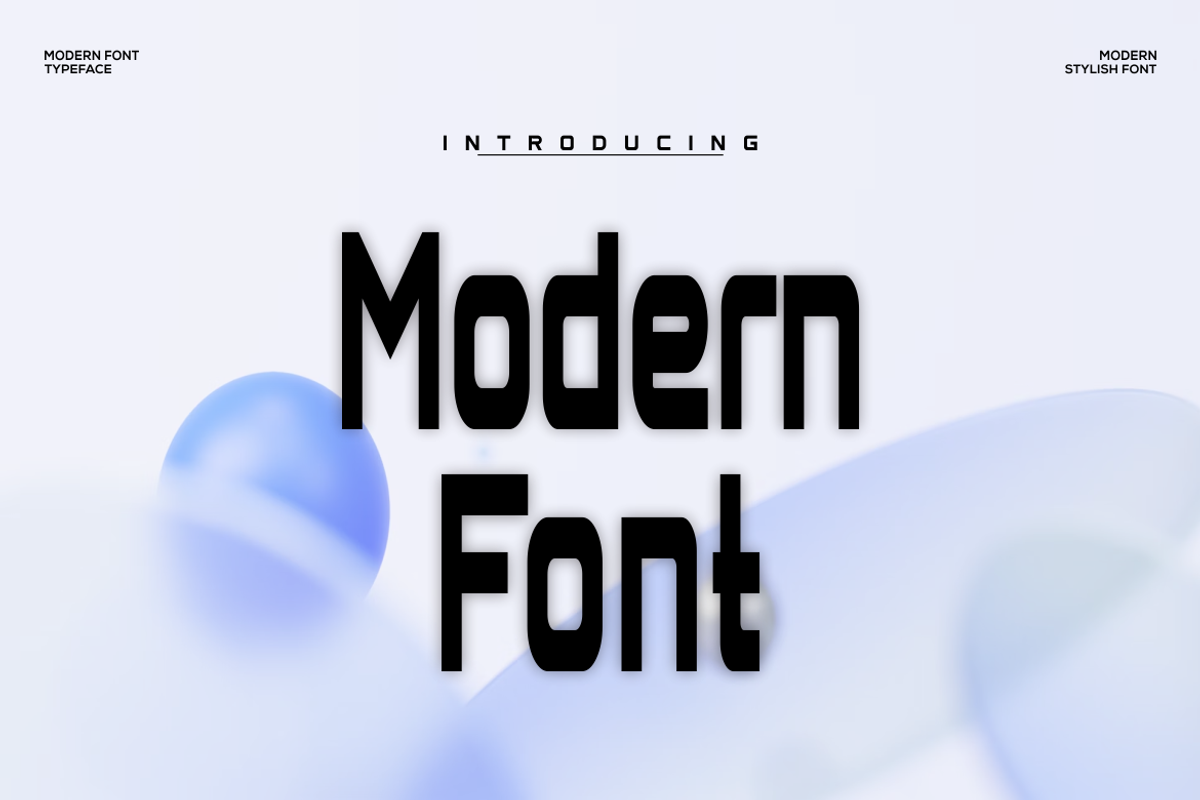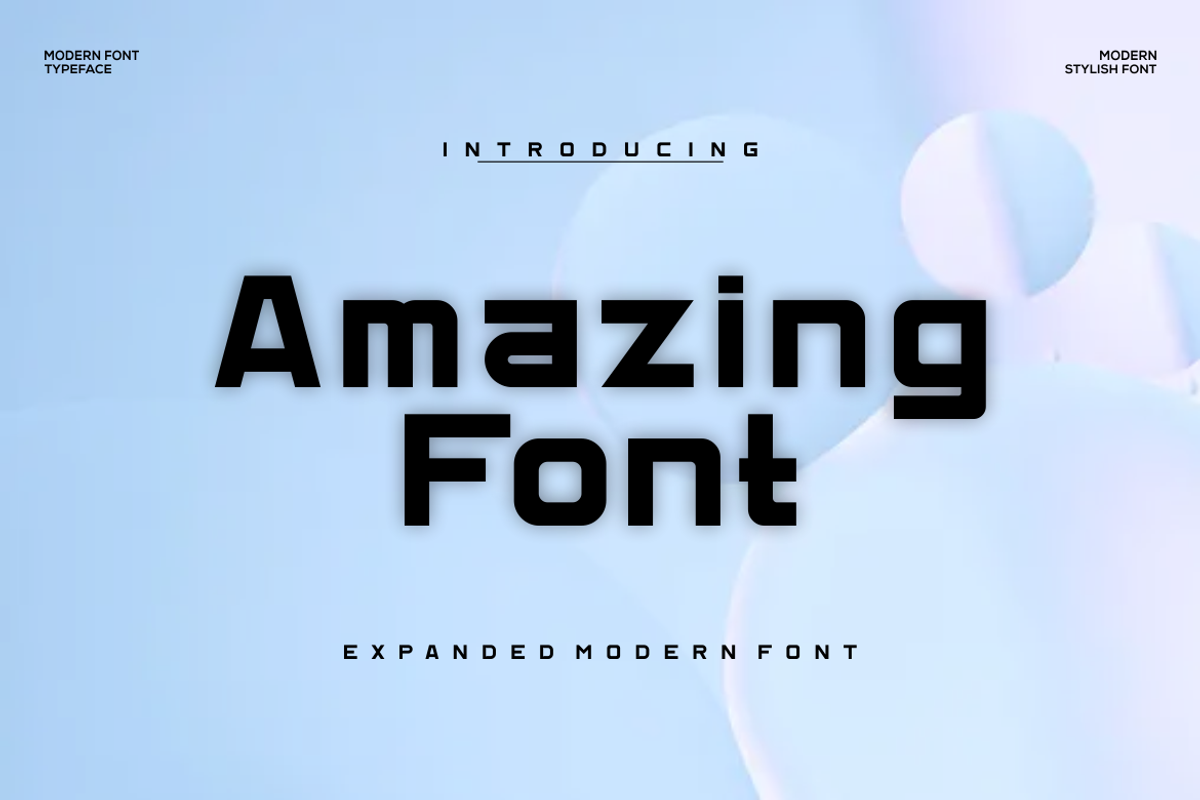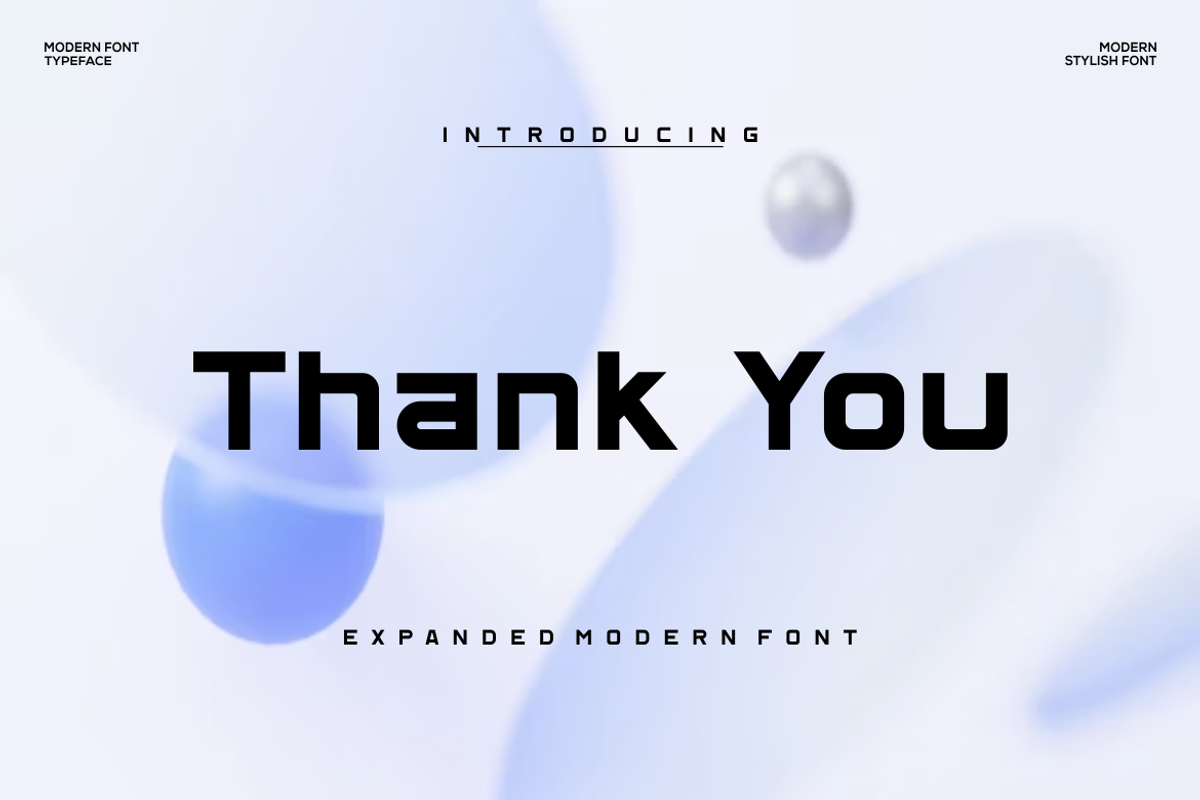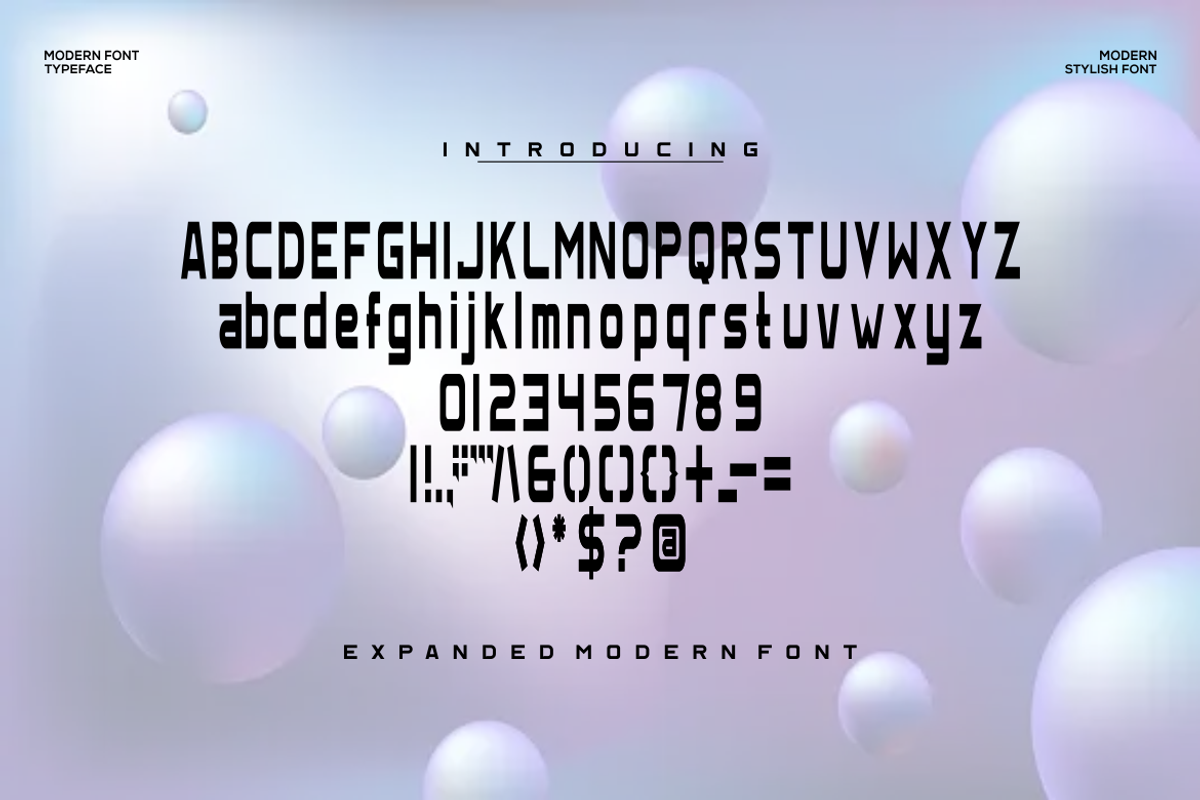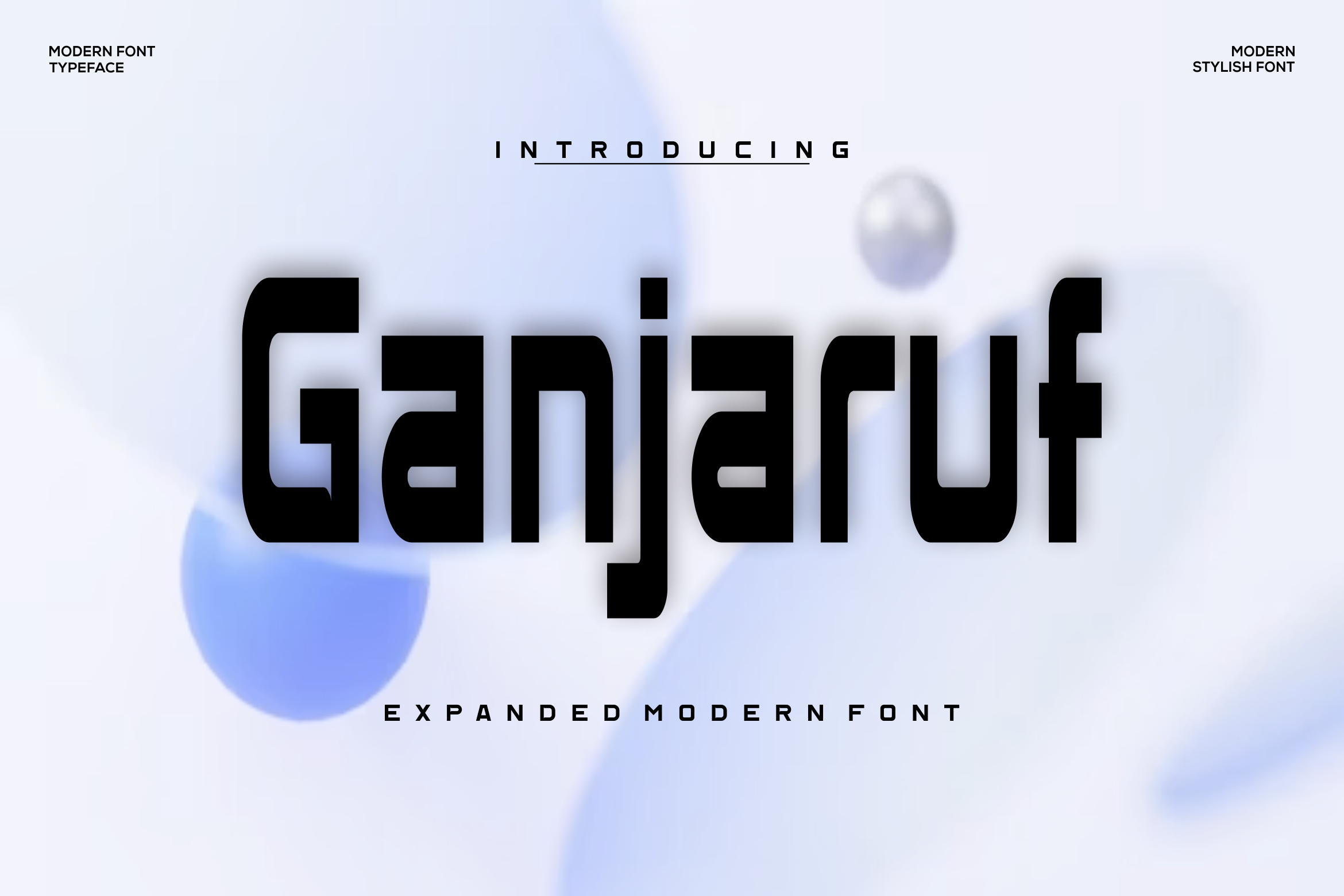
Ganjaruf Font
Presenting our new product Ganjaruf Font - Modern Font is a bold and authentic display font. This font is perfect for any branding project such as logos, t-shirt printing, creative products, and more. extraordinary in a variety of contexts.Ngaret.